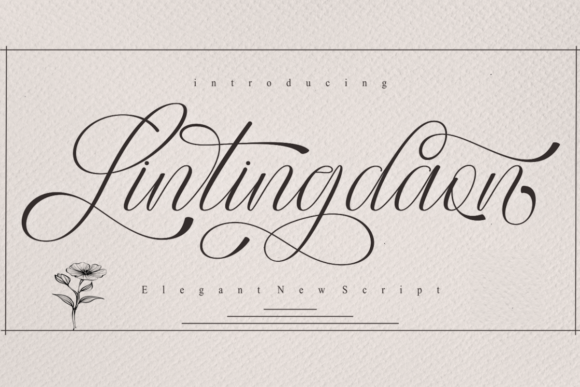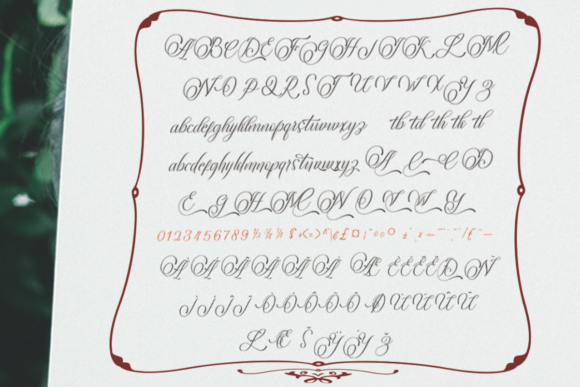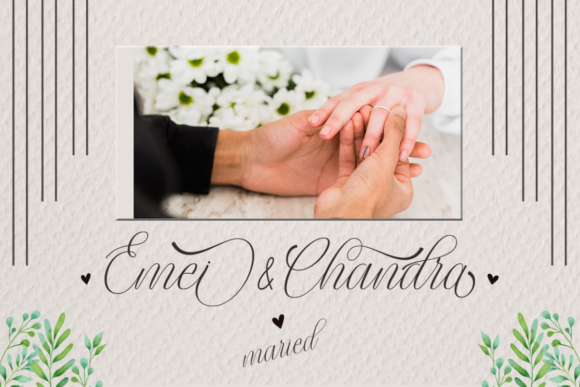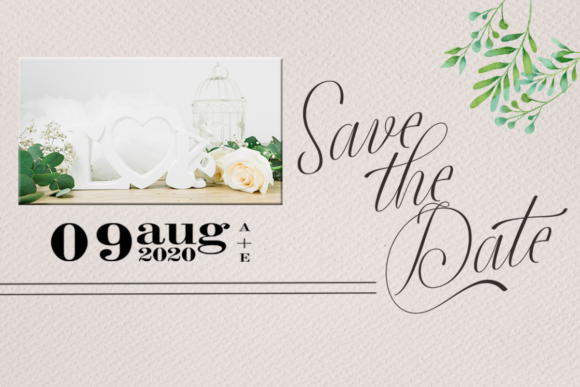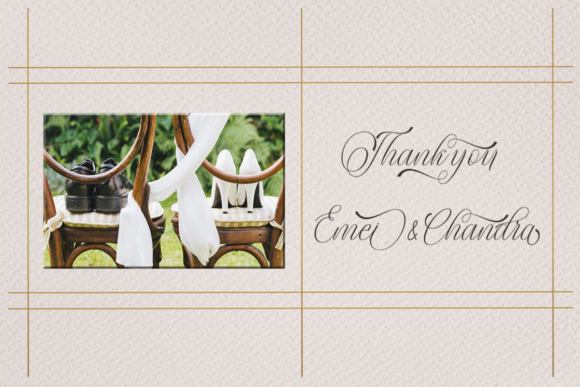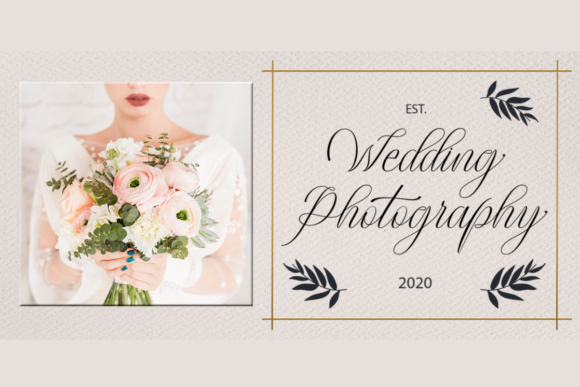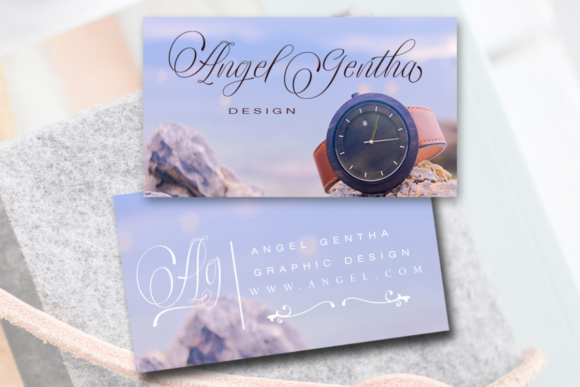
Lintingdaon is an exceptional script font that has a host of beautiful swashes with a romantic and soft rhythm that can be used to create unique and elegant wedding invitations, cards, packaging, logos, and so much more.
Lintingdaon Script Font